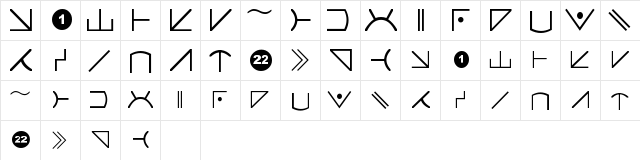
Futurama Alien Alphabet Two Regular
| Foundry | The Leela Zone |
| Designer | Leandro Pardini |
Design Context for Futurama Alien Alphabet Two Typeface
Futurama Alien Alphabet Two channels digital-age aesthetics through its sharp, structured letterforms — ideal for brands that want to signal innovation.
Pro Tip: Try Futurama Alien Alphabet Two with generous letter-spacing in UI labels and navigation — the geometric forms benefit from room to breathe.